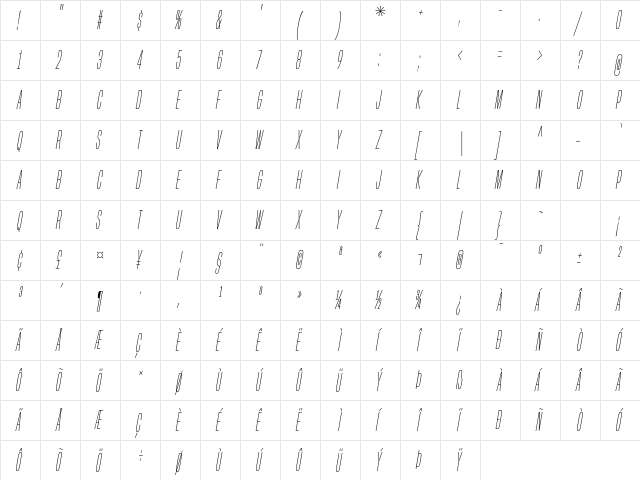
Built Titling ExtraLight Italic Font Preview
Design Context for Built Titling Typeface
Built Titling offers clean, dependable letterforms without strong stylistic allegiance, making it a practical choice for designers who need flexibility. The slanted form adds forward momentum and visual energy. Its slender proportions lend an understated elegance to any composition.
Pro Tip: Try Built Titling for annotation and caption copy alongside an upright companion — the contrast in angle creates a dynamic but ordered typographic system.